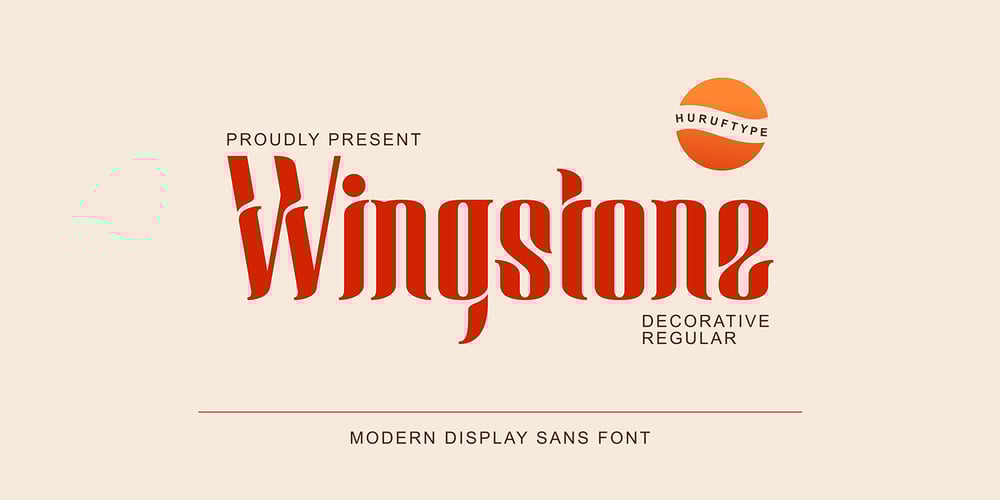
Wingstone Font Family was designed by Ibnu Utomo and published by Omotu. Wingstone contains 2 styles and family package options. Wingstone is a modern beautiful display sans font. Comes with 2 styles, decorative and regular. Suitable for logotype, branding, packaging design, poster design, website/display, editorial, headline, advertising, and more.Whats Include?01. Opentype support02. Multilingual support03. PUA encoded04. Features: Uppercase, lowercase, numerals, punctuations, contextual alternates05. Accessible in the Adobe Illustrator Glyphs panel, or under Stylistic Alternates in the Adobe Photoshop OpenType menu, Adobe InDesign, Corel Draw, even work on Microsoft WordPlease message me if you’re unsure of any language support.Thanks for looking, and I hope you enjoy it! Please don’t hesitate to drop me a message if you have any issues or queries.